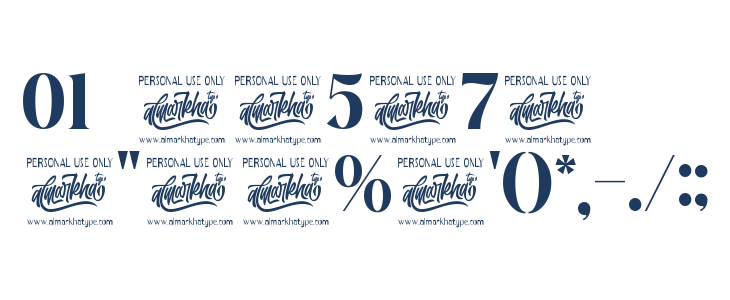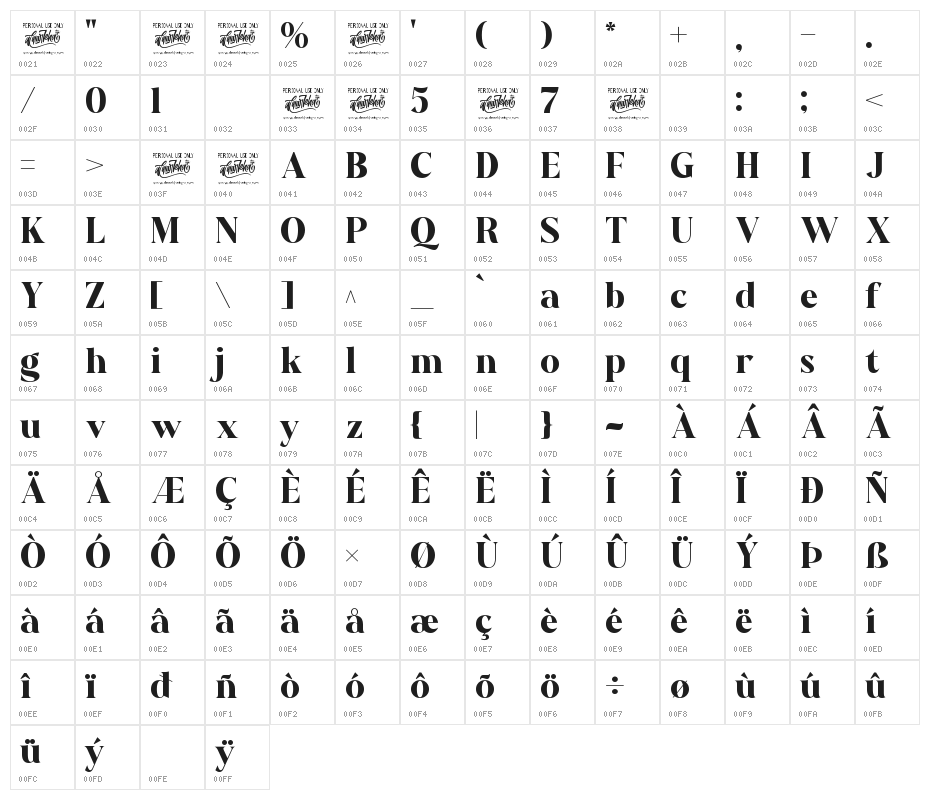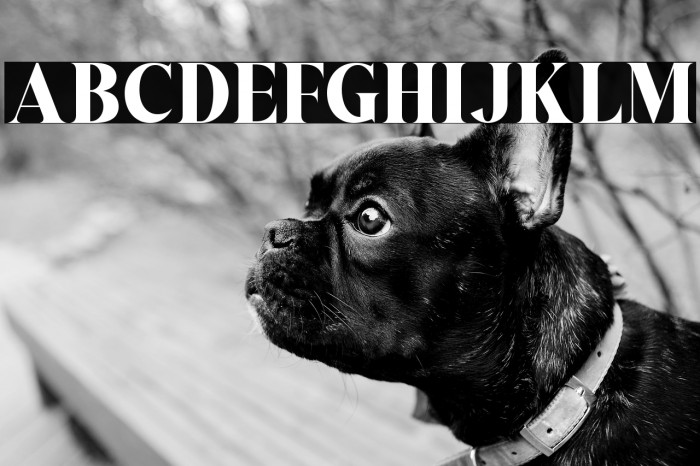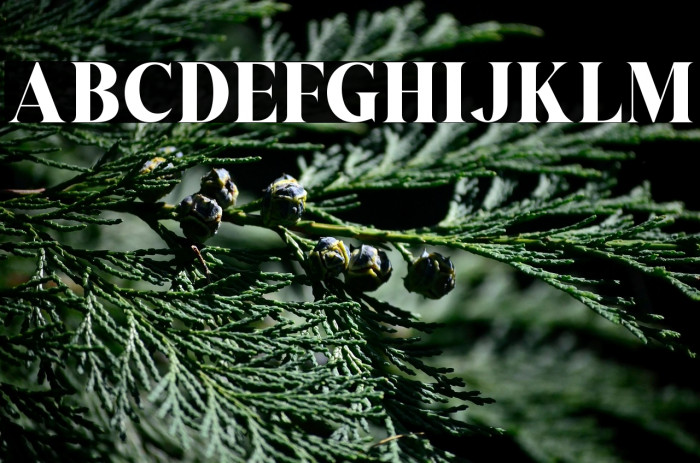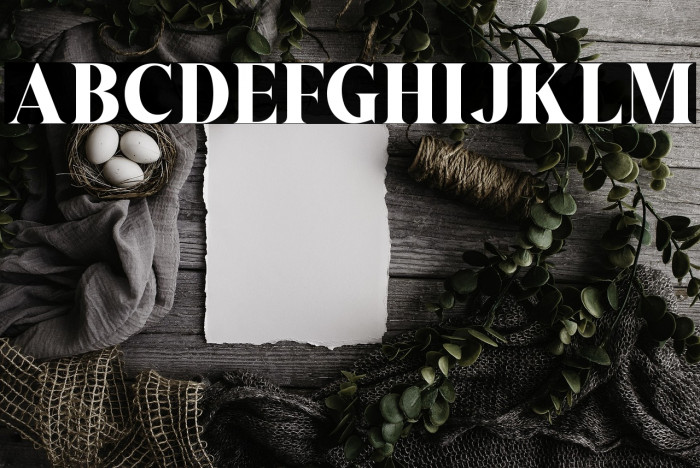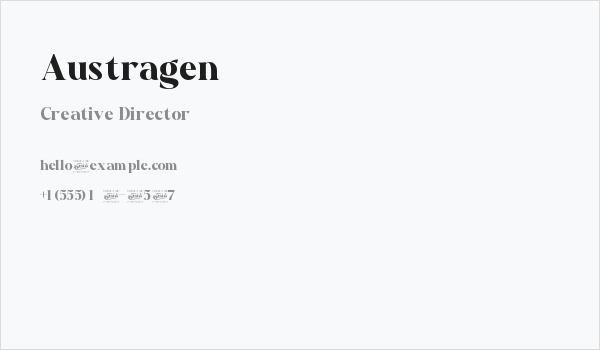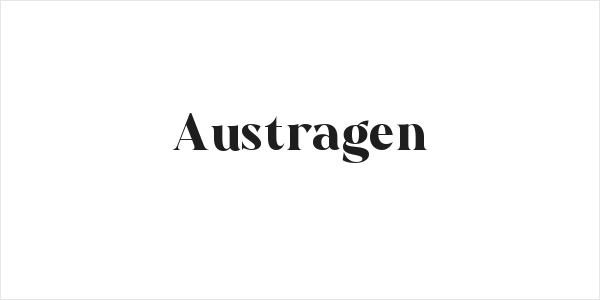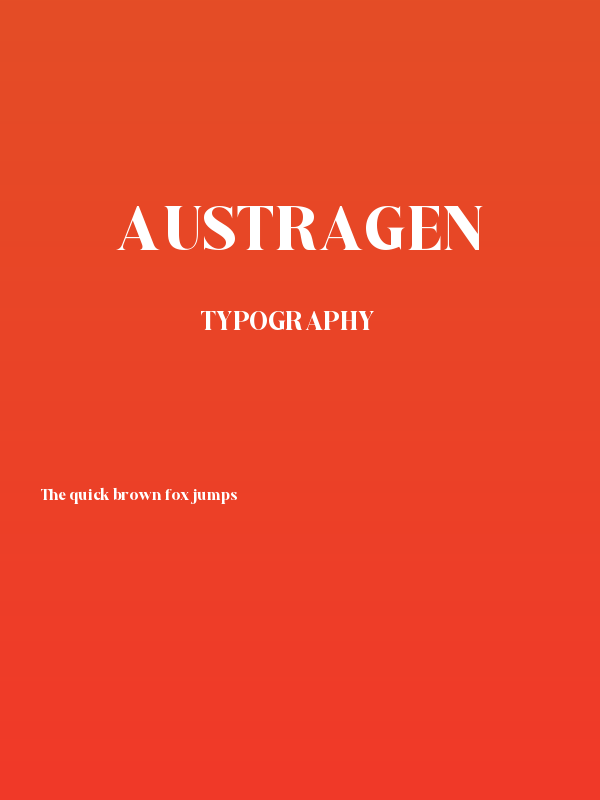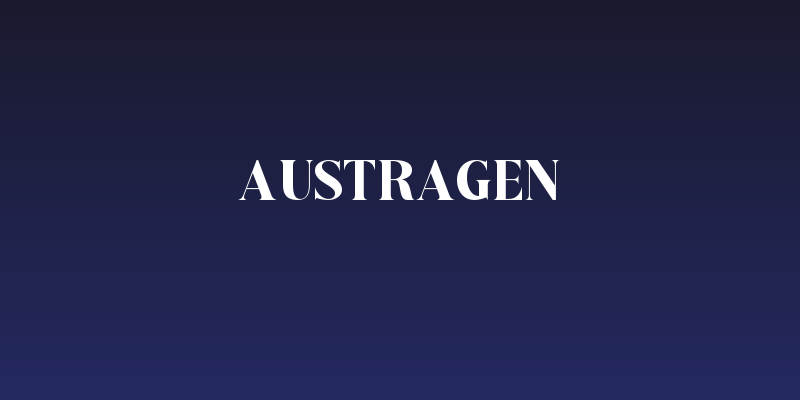
Austragen Font
Austragen Description
This font exhibits a bold and classic serif style, characterized by its strong and pronounced strokes. The uppercase letters are elegantly designed with a slight flair, giving them a distinguished appearance. The lowercase letters maintain a consistent style, with rounded edges and a balanced weight that complements the uppercase. Numbers and special characters are crafted with the same attention to detail, ensuring uniformity across all elements. The overall design is both timeless and versatile, making it suitable for a variety of applications.
| Use Case | Headlines, Logos, Editorial design |
| Proposed Projects | Ideal for use in editorial design, book covers, branding, and formal invitations. |